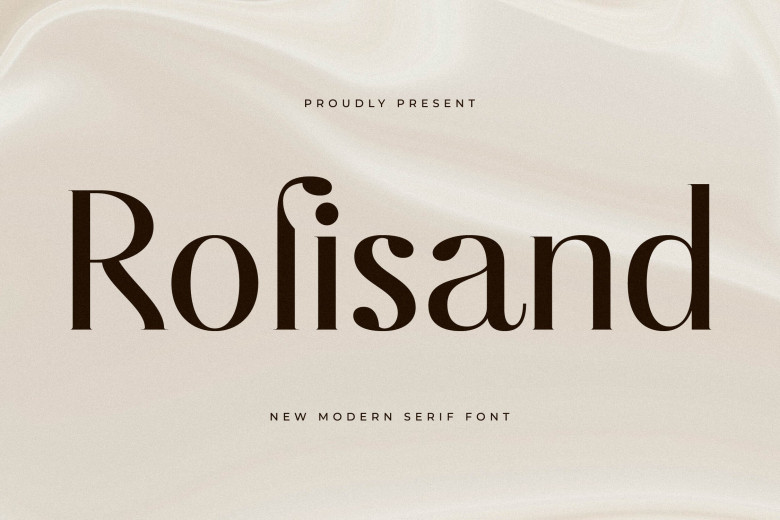
Rolisand Font
Rolisand Typeface by Storytype is an elegant yet modern font with its distinct style and appearance, ideal for use as logos, movie or book name designs, fashion brand magazines, clothing letters, quotes and much more.
Rolisand Serif Font